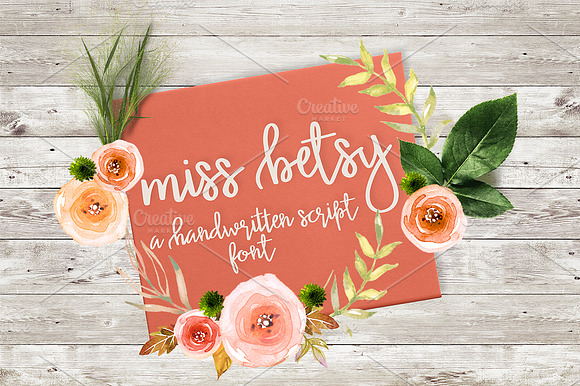
Miss Betsy Font
A pretty, handwritten script font. Perfect for greeting cards, stationary, scrapbooking, prints and more! This font includes some initial characters, standard ligatures, stylistic alternatives, and discretionary ligatures. Includes numbers and some punctuation.
- This font includes some initial characters, standard ligatures, stylistic alternatives, and discretionary ligatures.
- Includes numbers and some punctuation.